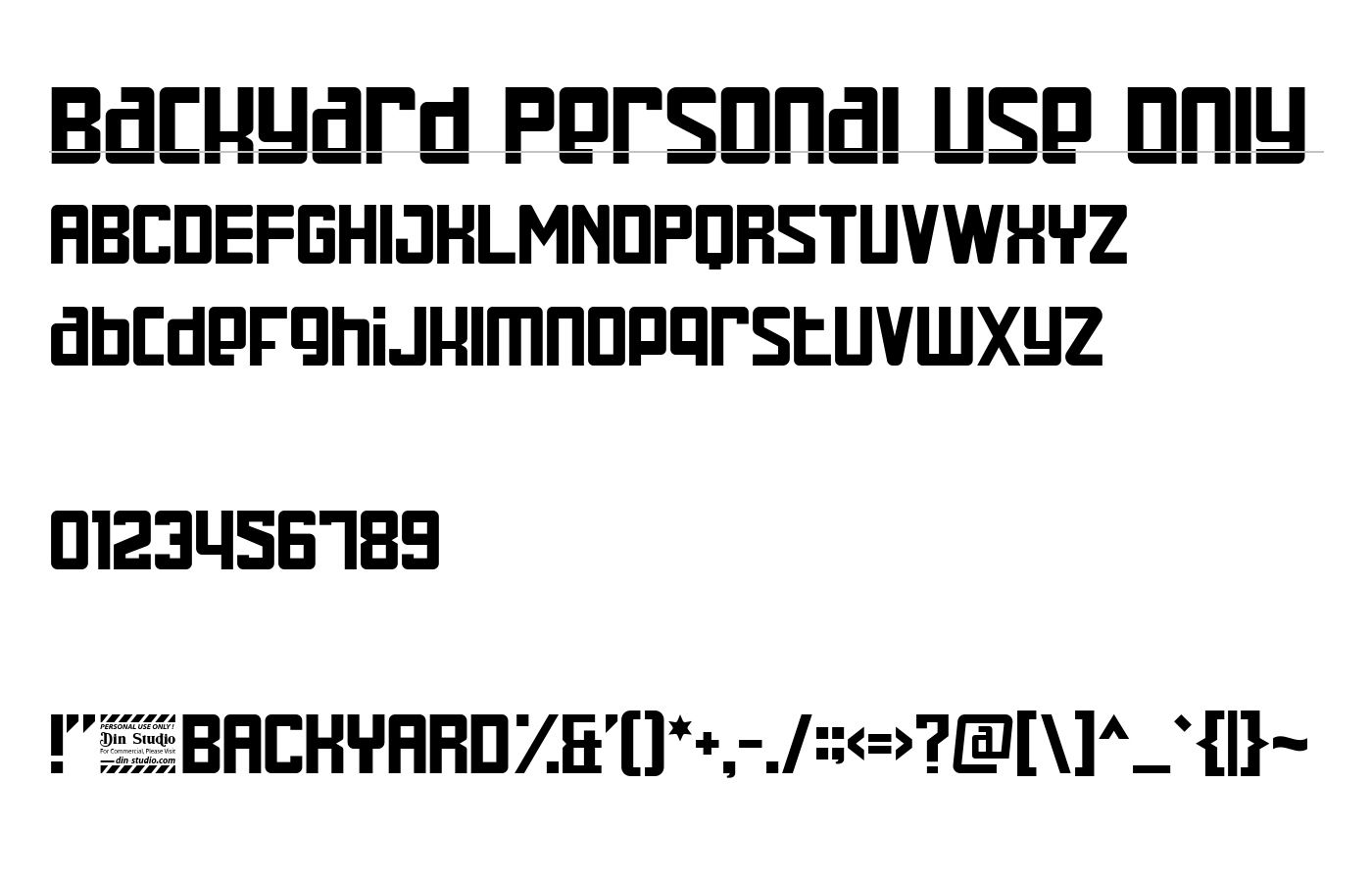
Backyard Personal Use Only is a bold, condensed sans serif font with a modern, geometric style that combines strong rectangular shapes and uniform stroke widths. Its tall x-height and tight spacing give it a compact, industrial feel, making it ideal for attention-grabbing headlines, branding, and display uses where a clean yet sturdy look is desired. This font works well for tech, sports, or urban-themed projects that want a contemporary, confident personality.
Backyard Personal Use Only Font
About Backyard Personal Use Only Font